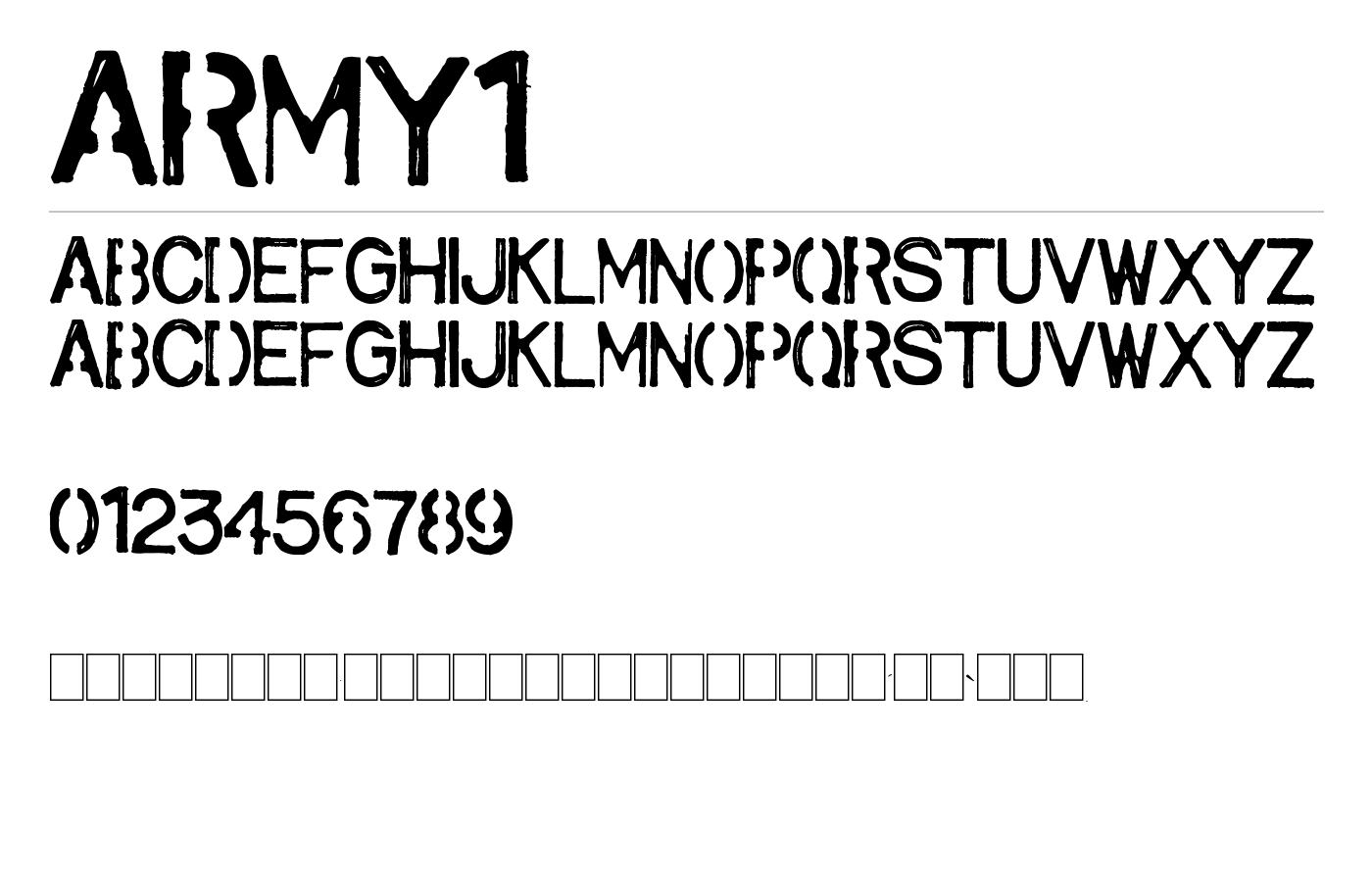
Army1 is a bold, condensed stencil-style sans serif font with rough, distressed edges that evoke a rugged, military-inspired feel. Its uppercase-only design and heavy texture make it perfect for impactful headlines, posters, and branding that demand a strong, utilitarian presence. This font is ideal for projects seeking a gritty, vintage military look with a tough and adventurous character.
About army1 Font